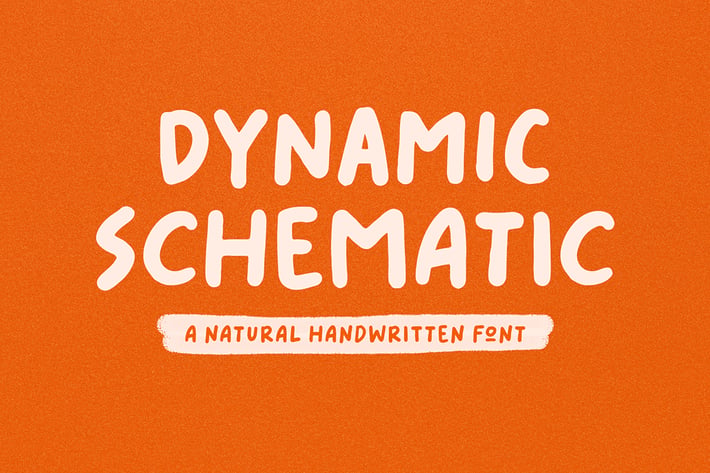
Dynamic Schematic Font
Dynamic Schematic is a natural handwritten font, written with fun and relaxed. It comes with 400+ glyphs, which also include multilingual languages.
Dynamic Schematic is perfect for headlines, branding, quotes, and many more.
- Uppercase & lowercase
- Punctuation & symbols
- Stylistic Set
- International characters (Multilingual)